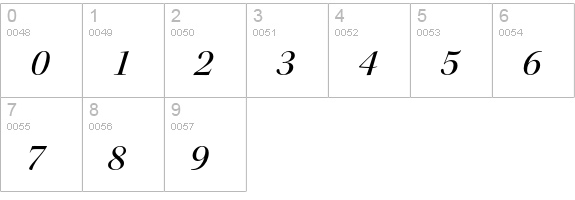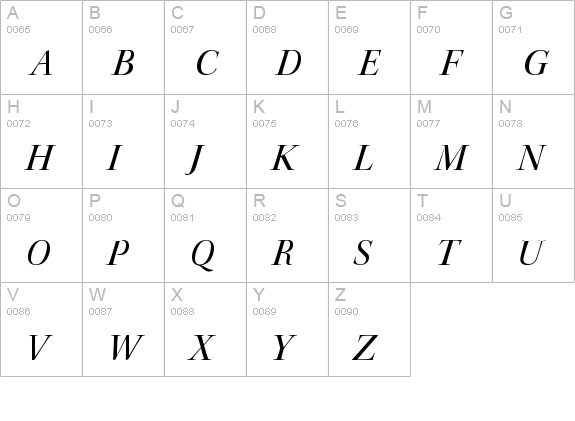
Kepler Std Medium Italic Display Font Details
Kepler Std Medium Italic Display is a balanced, medium-weight, italic variant in the Kepler typeface family \xE2\x80\x94 well suited to sub-headlines, navigation, and balanced editorial work.
The Kepler Std Medium Italic Display font is a beautiful and versatile typeface that exudes elegance and sophistication. With its slanted and slightly condensed design, this font adds a touch of stylishness to any project. Perfect for headlines, banners, and other display purposes, Kepler Std Medium Italic Display font is sure to catch the eye of your audience. Its medium weight strikes the perfect balance between boldness and readability, making it suitable for both large and small text sizes. The italicized nature of this font adds a unique flair to your typography, giving it a sense of movement and dynamism. It effortlessly conveys a sense of modernity and professionalism, making it an excellent choice for branding and corporate designs. But what sets Kepler Std Medium Italic Display font apart is that it is freely available to download at FontsMarket.com. This means that you can enjoy the beauty and versatility of this font without any cost. Whether you are a student, professional, or just a font enthusiast, this font is accessible to everyone. So why wait? Enhance your designs with the stunning Kepler Std Medium Italic Display font. Download it for free today at FontsMarket.com and unlock the potential of this remarkable typeface.